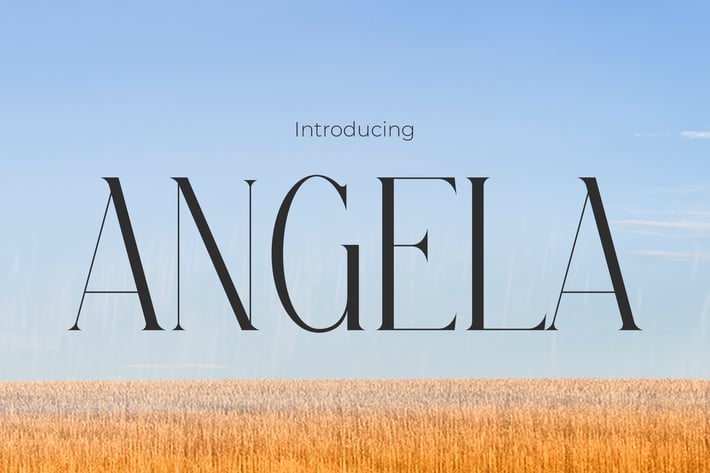
Angela Modern Elegance Font
Angela
Angela is a high-contrast editorial serif that pairs classic refinement with modern minimalism—crafted for projects that demand elegance and presence. Its elongated verticals, delicate curves, and sharp terminals bring a luxurious yet understated rhythm to each letterform. This typeface speaks with quiet authority, perfect for upscale branding, clean magazine spreads, or boutique packaging that values subtlety and sophistication. Designed to evoke calm confidence, Angela blends traditional structure with contemporary proportion for timeless visual impact.
Ideal for fashion lookbooks, skincare product labels, magazine titles, or elegant social media graphics, Angela delivers polished clarity and high-end feel with every letter. It helps brands project refined aesthetics while maintaining a contemporary edge—ideal for visual storytellers who prioritize luxury and balance. If your project calls for grace, readability, and lasting impression, Angela offers the delicate strength to elevate it effortlessly.
Key Features :
Refined Elegance Meets Modern Simplicity
- Tall x-height with high contrast between thick and thin strokes
- Sharp, fine serifs and wide spacing for a clean editorial feel
- Graceful curves balanced with structured upright forms
Versatile for Upscale Visual Identities
- Works beautifully across logos, skincare packaging, magazine spreads, and fashion branding
- Designed for attention without shouting—ideal for minimalist design systems
- Excellent legibility even in display size or stylized text layouts